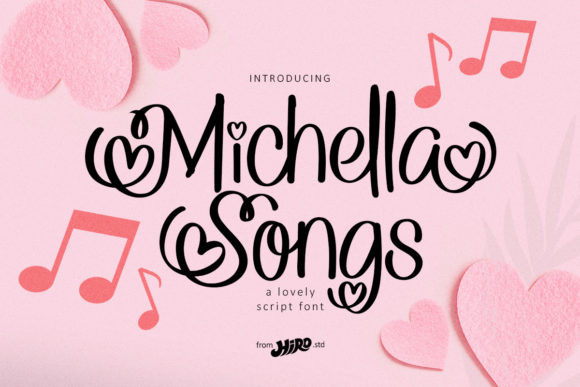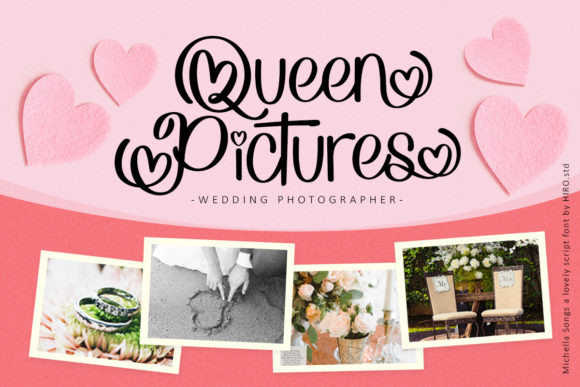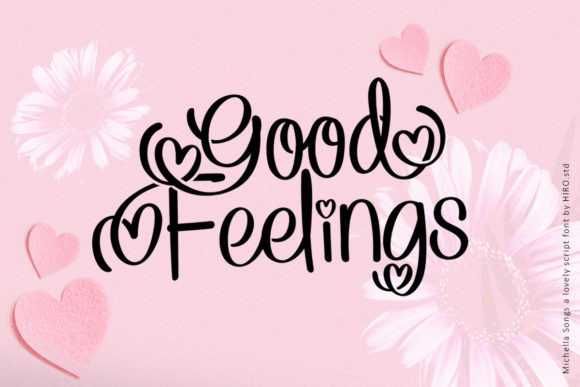
Michella Songs Font
Michella Songs FontMichella Songs is an enchanting handwritten font. This versatile script font has a wide spectrum of applications ranging from greeting cards to headlines and is guaranteed to add a romantic feel to your next project.